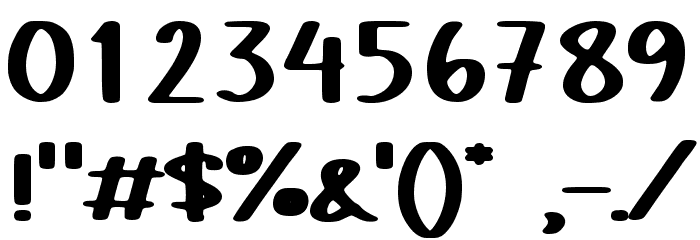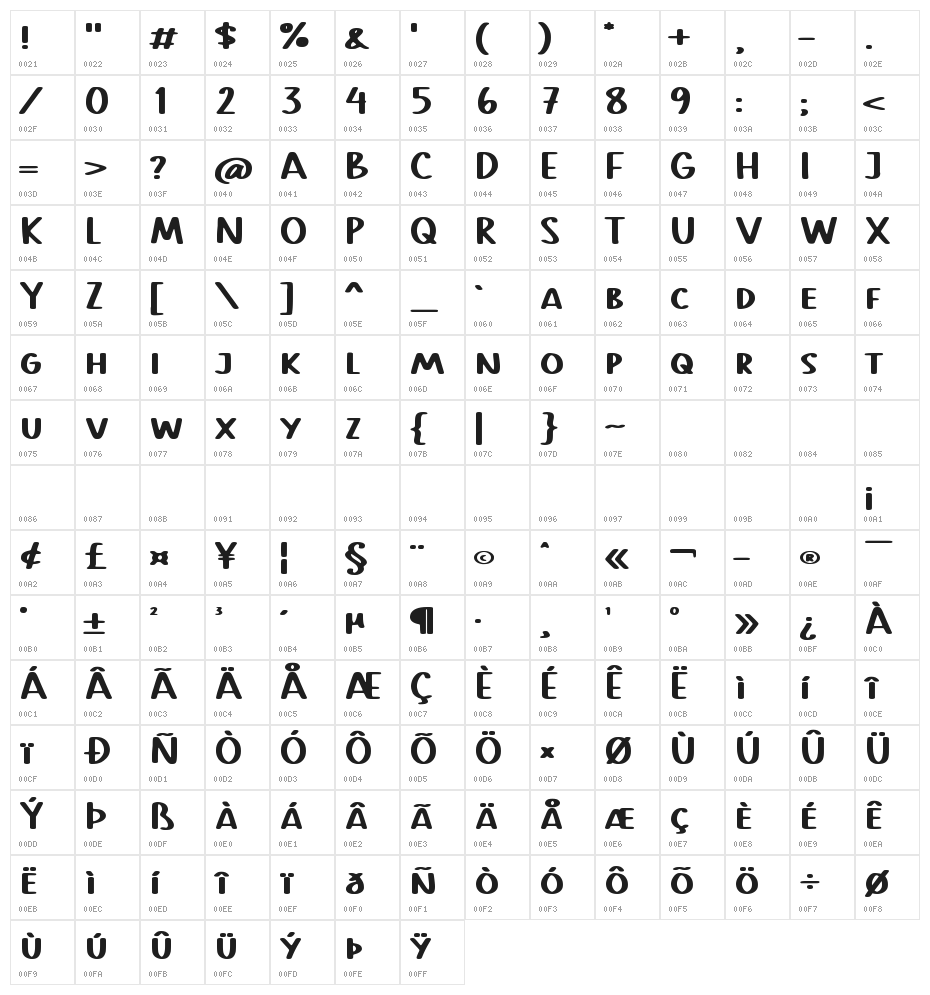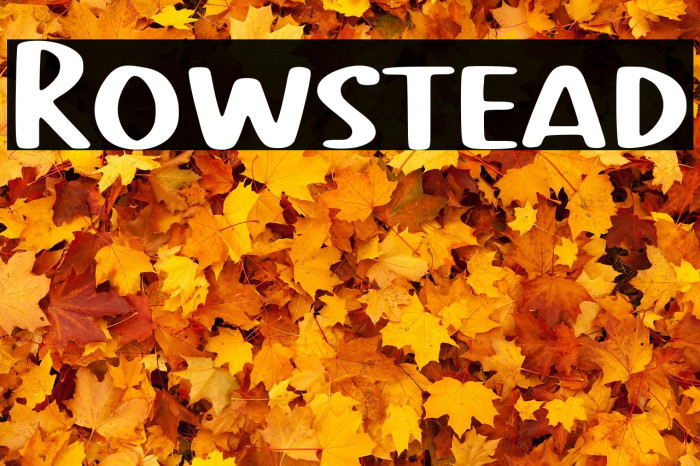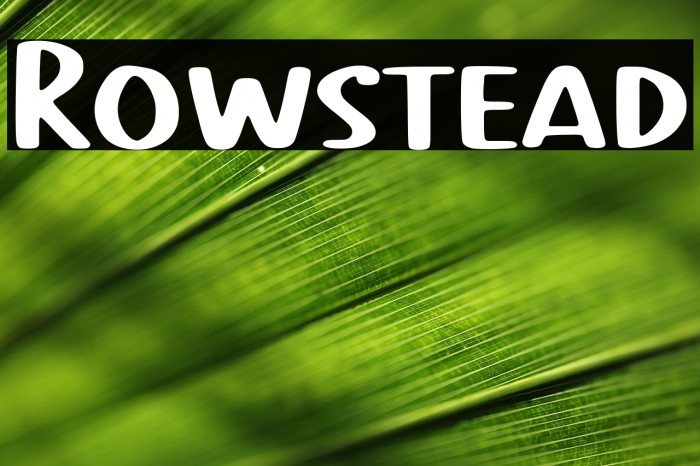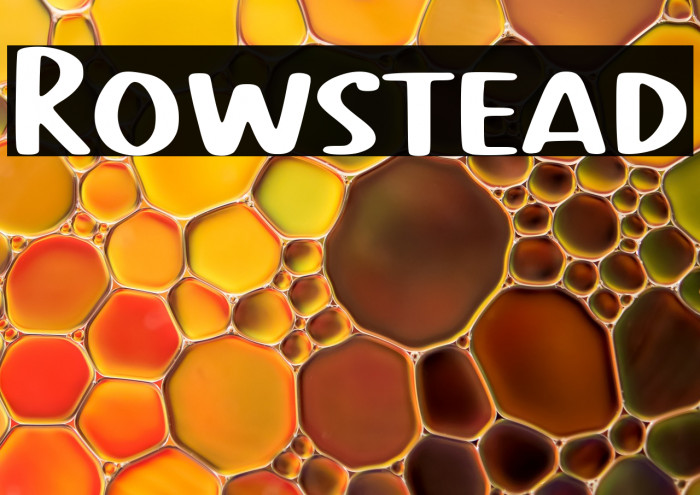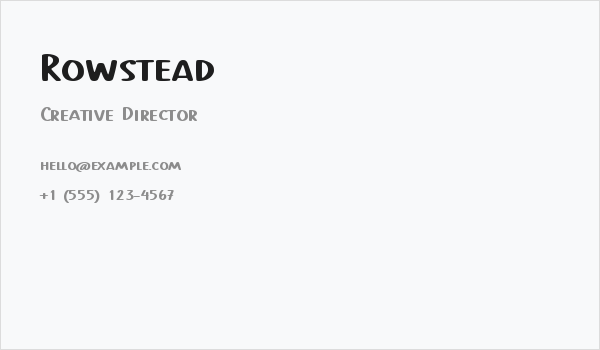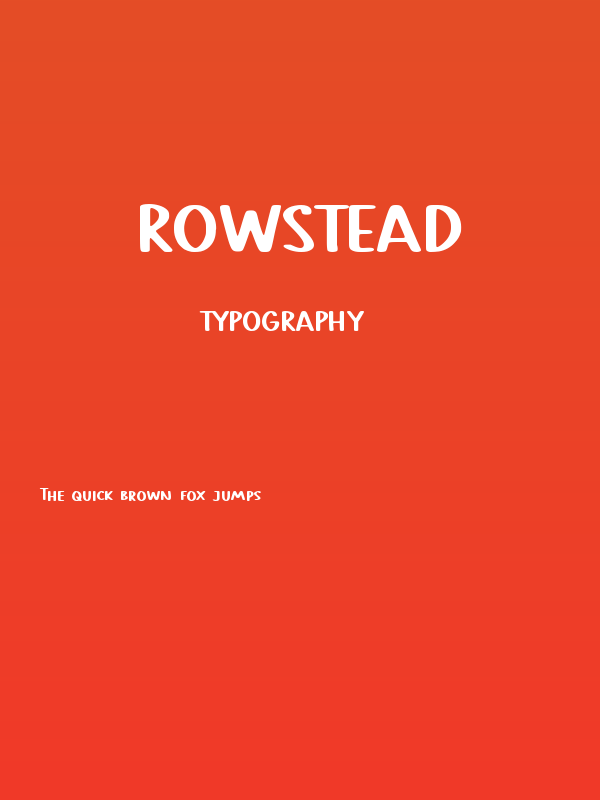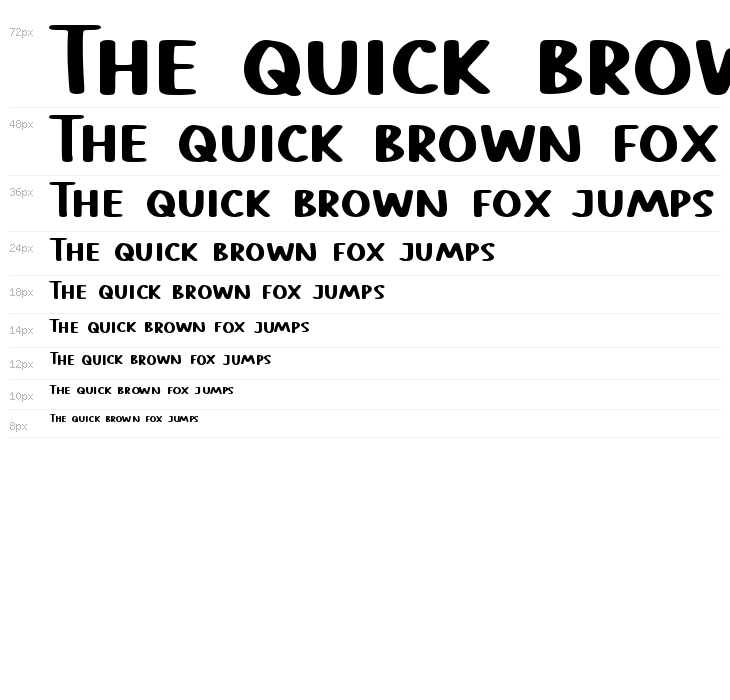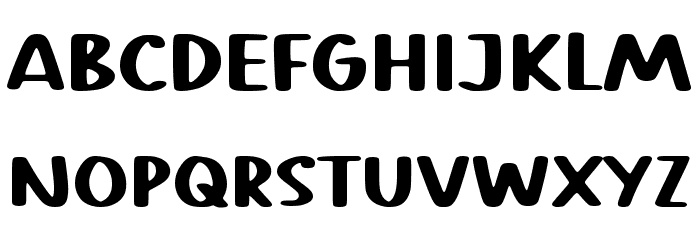
Rowstead Font
Rowstead Description
This font features a playful and rounded style, characterized by its bold and smooth curves. The letters are slightly slanted, giving a sense of movement and energy. The strokes are consistent in thickness, providing a uniform appearance across all characters. The numbers and special characters maintain the same playful aesthetic, making the font versatile for various uses. Its friendly and approachable design makes it suitable for informal and creative projects.
| Proposed Projects | Ideal for children's books, playful branding, casual invitations, and creative posters. |